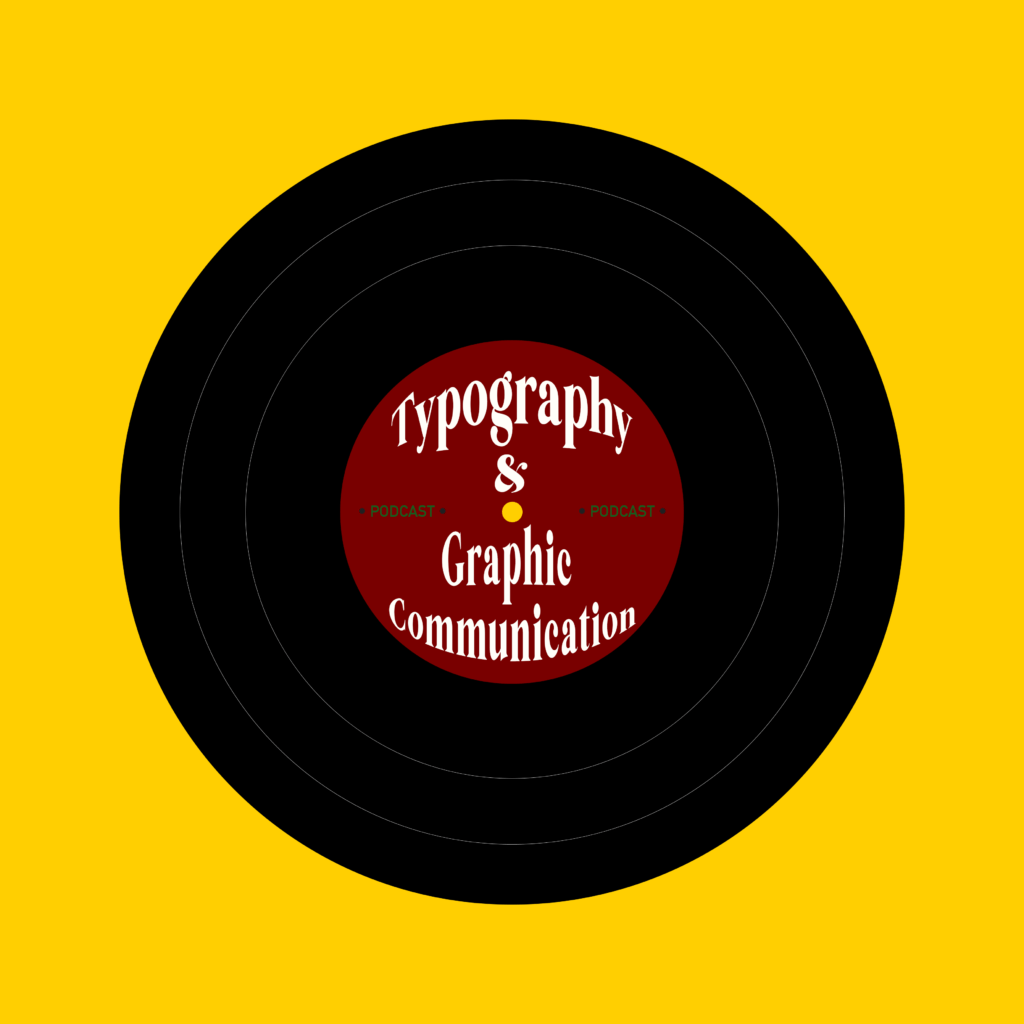
Design Ideas and Process
When planning, I first researched different podcast covers for inspiration and used them to create a mood board for myself when sketching out my initial ideas. I came up with six different ideas and used three of these to create some covers.
For the first cover, I was inspired by the pink podcast cover in my mood board of a boy shouting through a mic, and words flowing out through it, imitating the noise level. I first took a picture of a mic I had back at home and used the eraser tool to remove the background. Then I added text and warped it to create a horizontal distortion as if the words are coming out through the mic. To add to this sound imagery, I put in some triangle shapes behind the words to emphasise this distortion and to create a direction of where the sound is coming from. I thought the background was a bit plain so I added some swirls around the centre representing the wires coming out from the mic, however, I thought it was too distracting so I removed it later. In terms of colour scheme and typeface, I went with a retro theme of pastels and a display typeface to make it more eye-catching.
For my second podcast cover, I thought that both music and podcasts came under a similar category as they both require listening to which is why I was inspired by vinyl and record designs. I first created the basic shape of a vinyl and added details using the shape tool. I then wrote the text for the podcast and used the warp arc effect to make the words fit around in a circle. However, I had a few issues with this as the text distorted a bit too much to the point where it was hard to read, and each of the lines became different sizes, creating a hierarchy I did not intend to make. Therefore, I changed the warp effect to the ‘buldge’ one, creating a fish-eye kind of perspective. This worked out a lot better and now looks more balanced. In terms of colour, I used quite a classic scheme for records: yellow, red and black. Then, I used a hint of green to mention the “podcast” bit, which comes to think about it now, may be hard to see over the dark red, but overall I am quite happy with this design. This piece allowed me to further develop my software skills by exploring and using the tools in Photoshop and arranging shapes and colours to create a visual of a vinyl. This is probably my favourite design out of the three as I like the visual look in terms of shape and colour, and how even and symmetrical everything is.
For my third podcast cover, I wanted to create a calm and relaxing atmosphere through the use of headphones and a dark background. It was hard to draw headphones free-handedly, so I made use of the shapes tool again to create an overlay of circles and rectangles to make that shape. Overall, I think that this cover could be improved in terms of relating it more to Typography and Graphic Communication, focussing less on atmosphere and more on communicating the actual message.
Software skills I want to develop further in Photoshop are creating more complex illustrations and possibly freehanded ones. Also, as Photoshop is mainly used to edit photos, I could have incorporated more images which would have developed my photo editing and manipulation skills.
These four links were the main sources of inspiration for my podcast cover designs. They helped me in terms of colour scheme, layout and imagery that I could include. I particularly liked the ones with bold colours and display font which really stood out to me. I hoped to do the same with my covers, such as using a bright yellow background to grab the viewer’s attention. I also learnt the importance of ‘simplicity is key’ when looking at these existing podcast covers as they all have a common feature of simplifying shapes and text in order to communicate a more clear and effective message to the viewer.